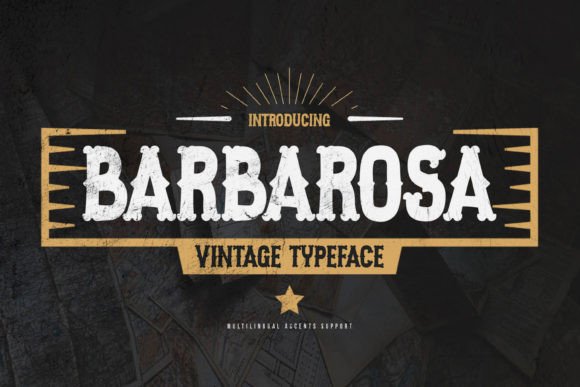
Step into a world of captivating typography with Barbarosa, the vintage serif font that will transform your branding endeavors into masterpieces. Its intricate design, inspired by the grandeur of decorative arts and architecture, whispers tales of sophistication and timeless elegance.
With Barbarosa, your logotypes will transcend the ordinary and become emblems of distinction. Its graceful curves and refined strokes evoke a sense of heritage and luxury, making it the perfect choice for businesses seeking to leave a lasting impression.
Unlock the potential of your headlines, posters, and logos with the captivating charm of Barbarosa. Its versatility knows no bounds, allowing you to create designs that exude creativity and originality.
Barbarosa empowers you to craft certificates, labels, and badges that radiate an air of authenticity and sophistication. Its ability to add a touch of class and refinement to any project is truly remarkable.
Indulge in the timeless beauty of Barbarosa, the font that will elevate your branding to new heights. Its intricate details and enchanting aura will captivate your audience and leave a lasting impression.